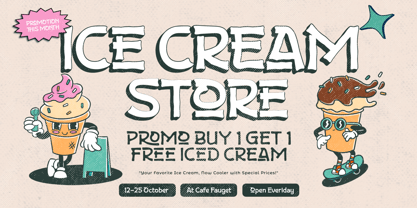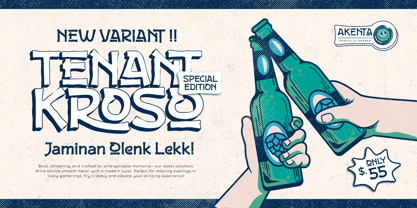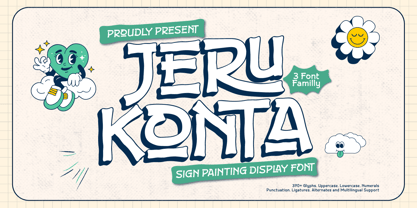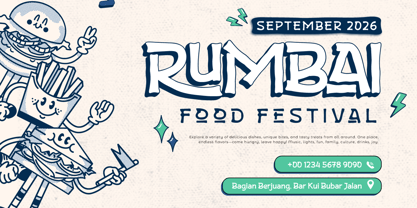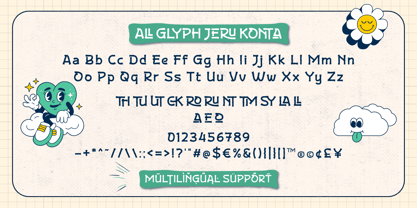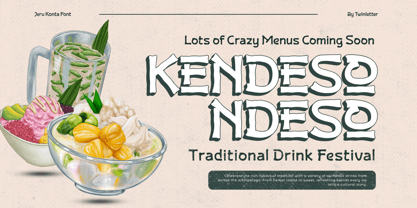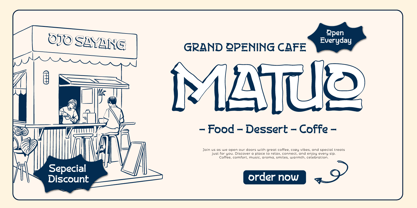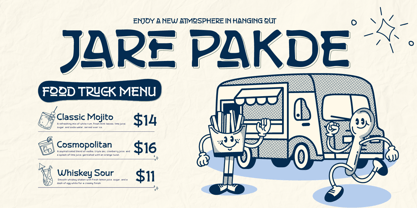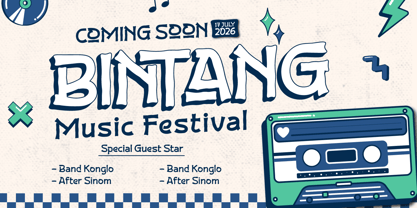
Jeru Konta is a charismatic sign painting display font inspired by classic hand-lettered signage and vintage storefront aesthetics. It comes in Regular, Blury, and Shadow styles, offering flexibility and layered depth for your creative projects.
The Regular version delivers clean and confident strokes, while the Blury style adds a touch of atmospheric softness, perfect for creating dreamy or nostalgic effects. The Shadow style enhances dimension, giving your text a standout presence that's perfect for posters, product labels, packaging, menus, or storefronts.
With its retro spirit and handcrafted charm, Jeru Konta brings warmth, personality, and a professional touch to both modern and vintage-themed designs.
- All glyphs and Feature